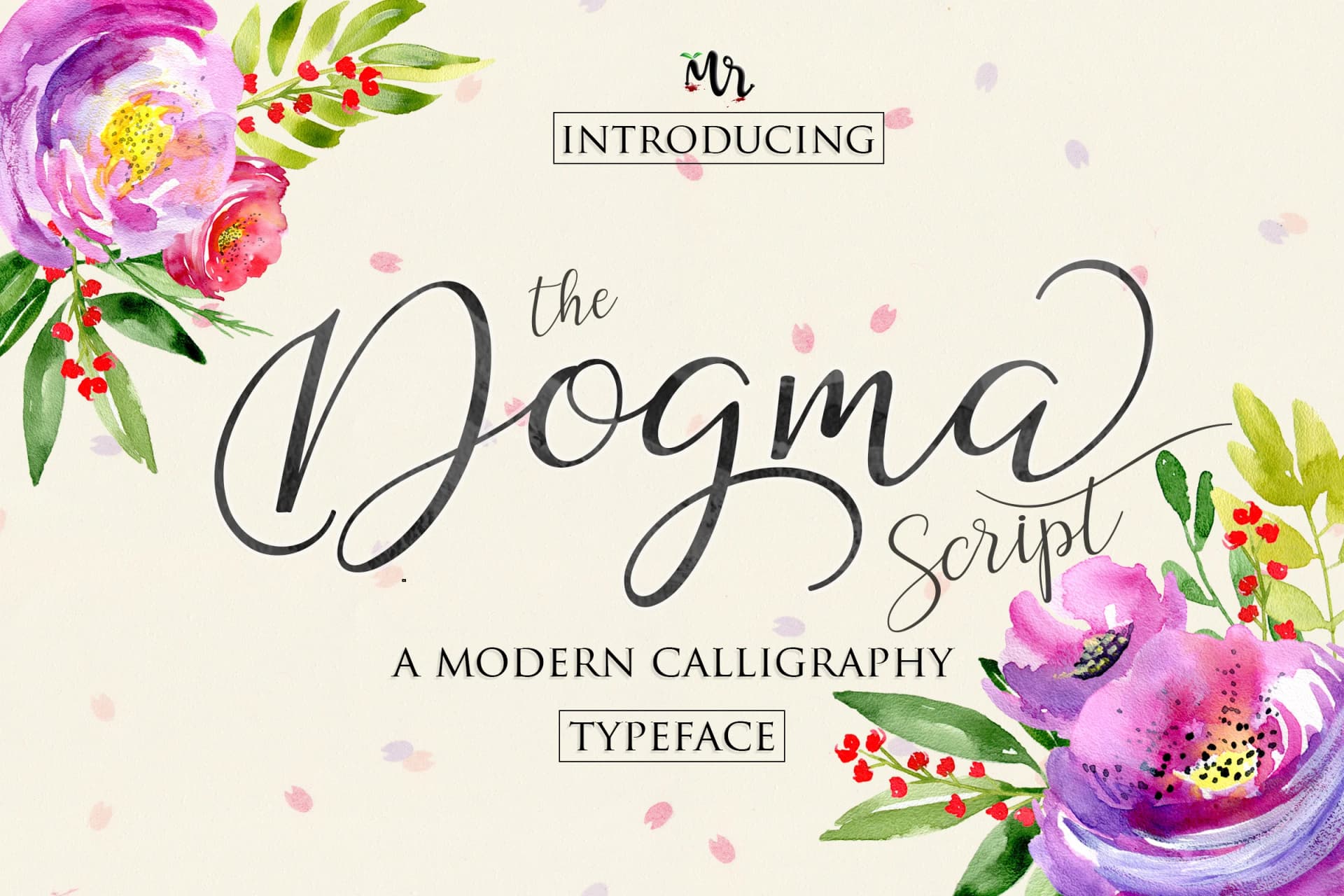
1 / 9About Dogma Script Font
Dogma Script Font by Mrletters is a flowing handwritten script that combines organic letterforms with contemporary versatility. The typeface brings a personal, hand-drawn quality to design work without sacrificing legibility or professional polish, making it equally suitable for intimate branding applications and large-format projects. This script excels in design work where warmth and character create meaningful connections. Designers frequently turn to it for wedding invitation suites with sophisticated flair, custom product labels for artisanal brands, cosmetics and skincare packaging that needs an approachable premium feel, and hand-lettered event signage for boutiques and galleries. The font's natural rhythm translates beautifully to social media graphics and brand identity work where personality is essential. Its versatile character set performs well whether layering it over photography, pairing it with clean sans-serif fonts, or letting it stand alone. The hand-crafted sensibility of Dogma Script appeals to makers, small business owners, and professional designers alike, anyone seeking typefaces that feel authentic rather than mass-produced. Whether you're crafting a sophisticated brand identity or designing custom pieces that need genuine character, this script delivers visual interest and emotional resonance across both digital and print contexts. Find Dogma Script Font on Creative Fabrica and discover how its flowing letterforms bring distinction to your work.
- Elegant, Flowing, Dogma Script
Dogma Script Font is a script font that shines as a display or heading face. Pair it with a clean sans-serif or serif font for body text β the contrast creates a clear hierarchy while the two styles stay balanced and easy to read.
Dogma Script Font
by Mrletters